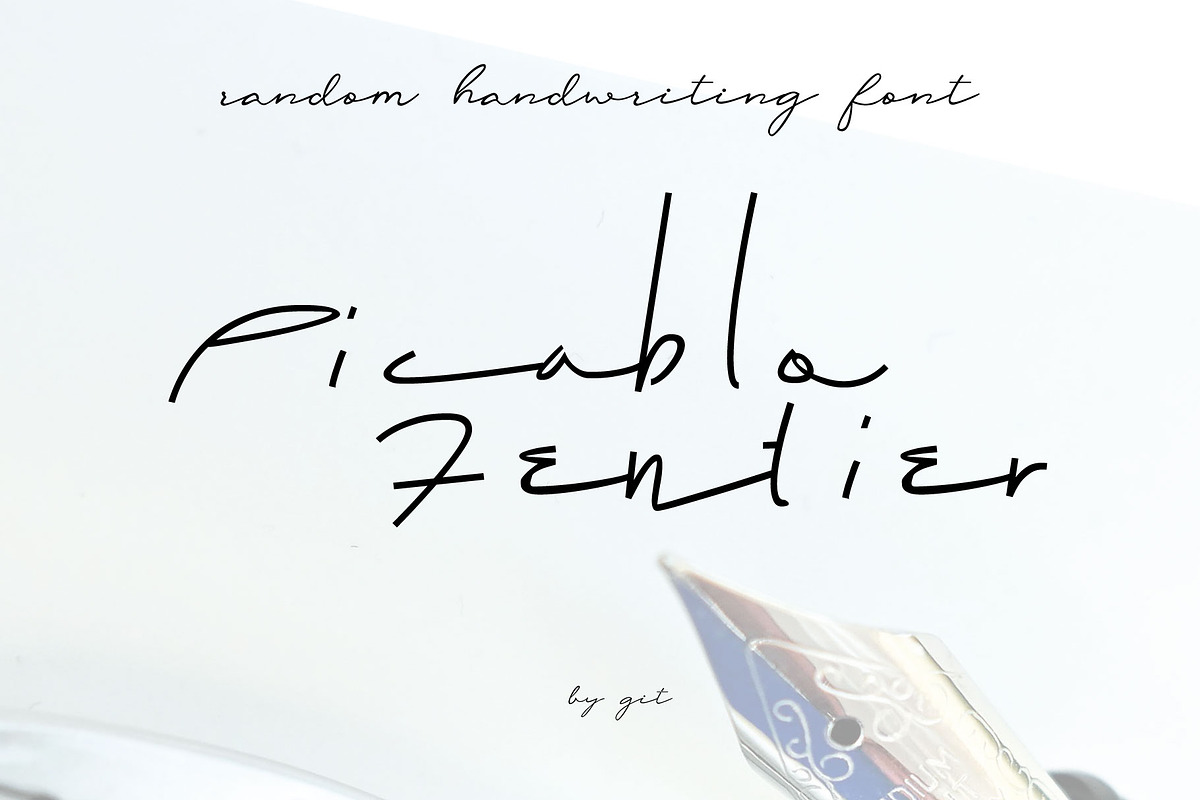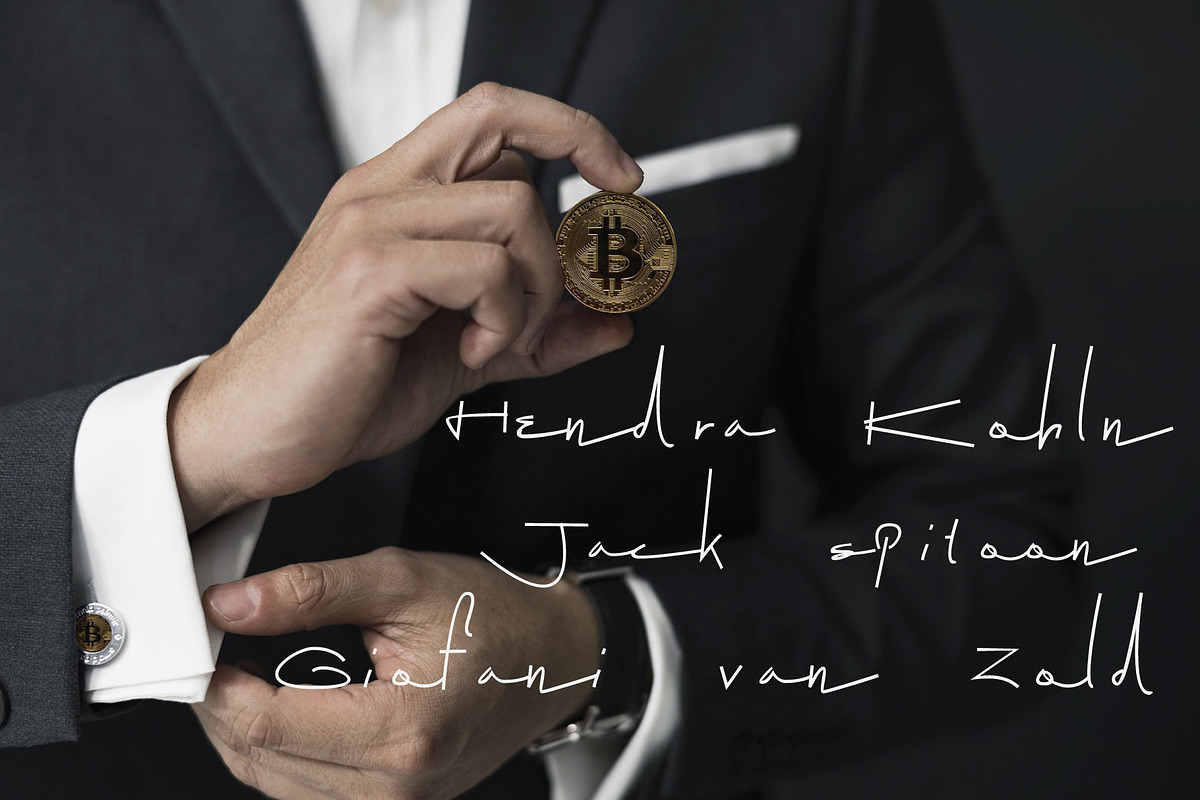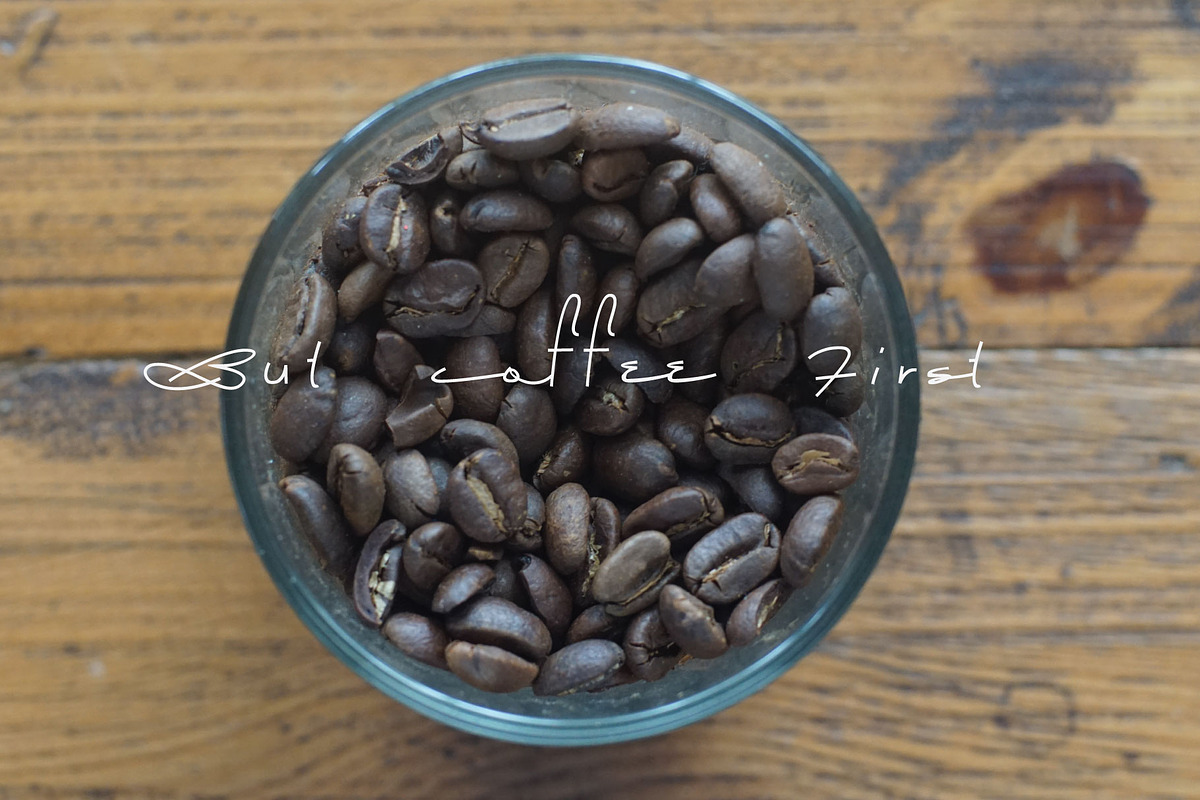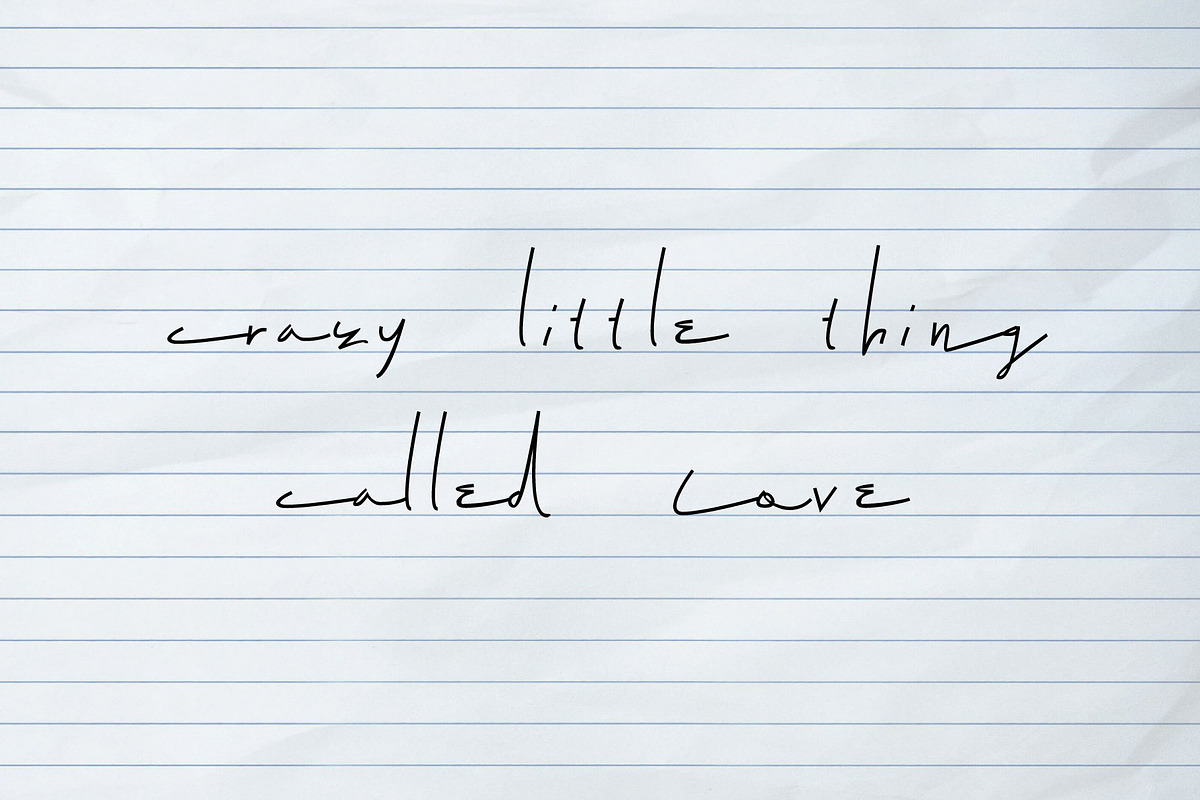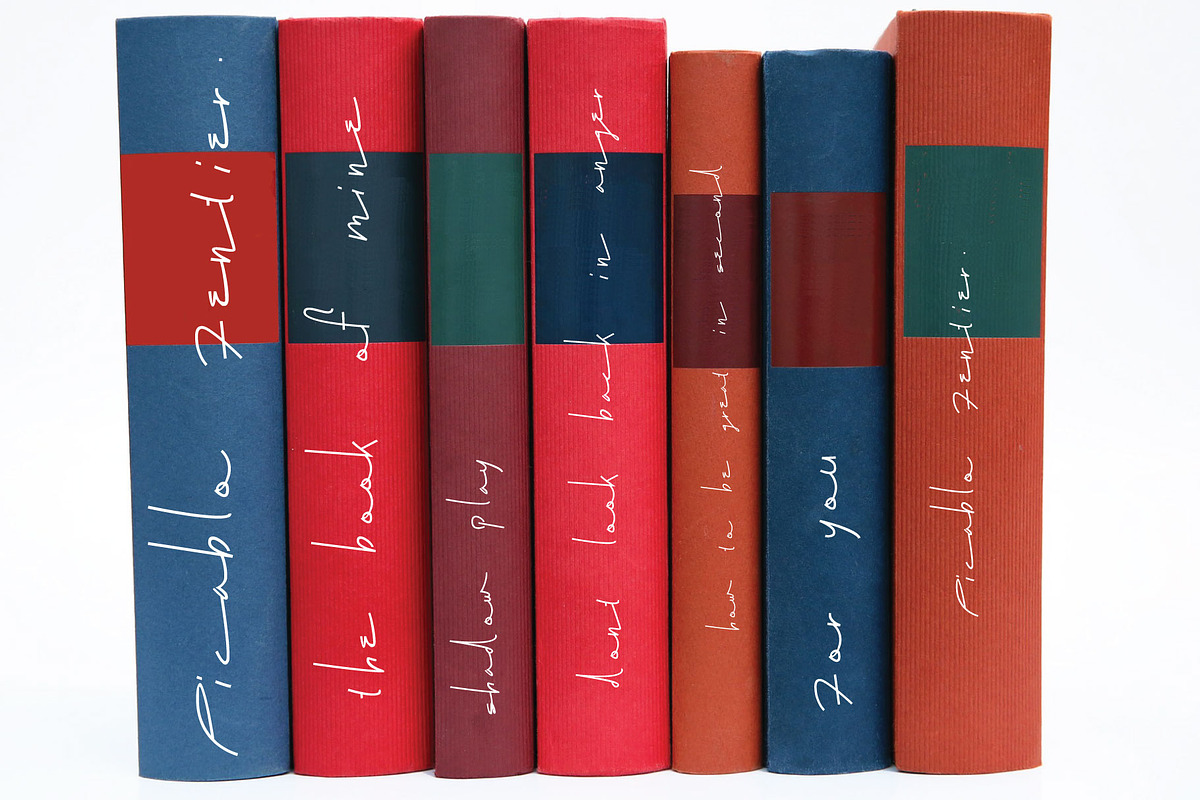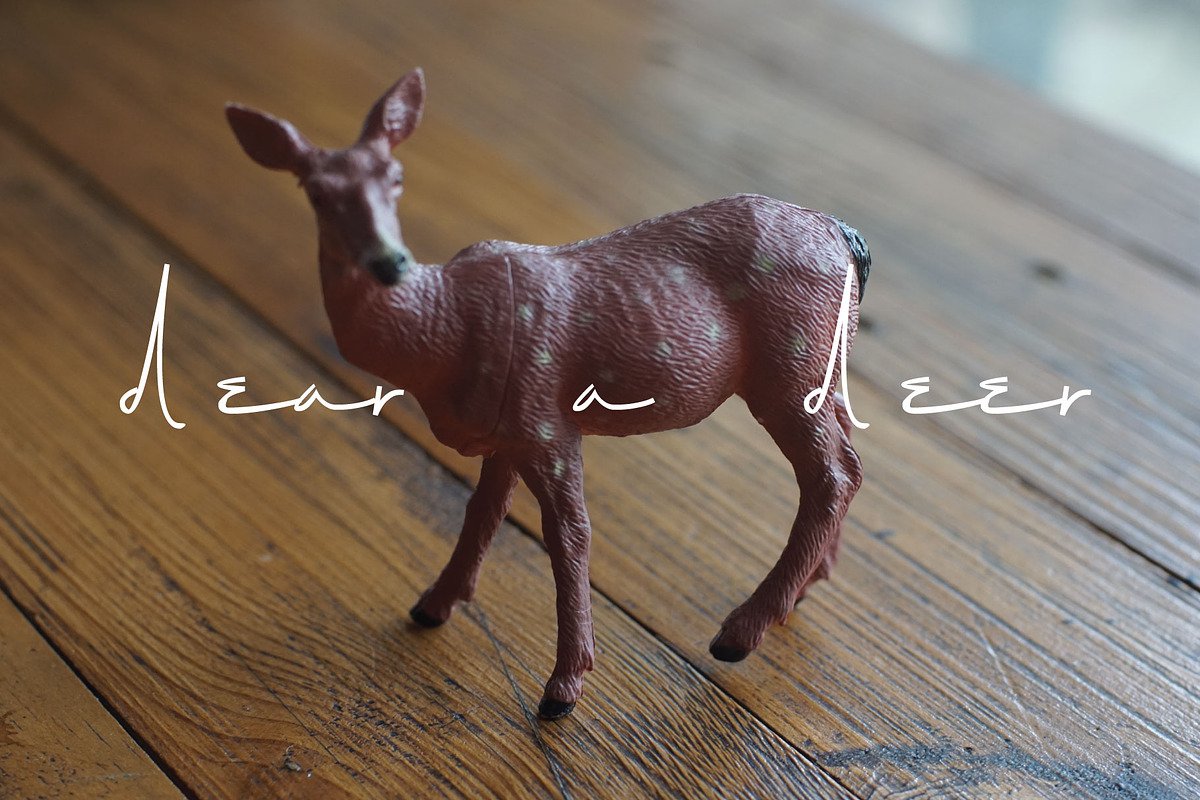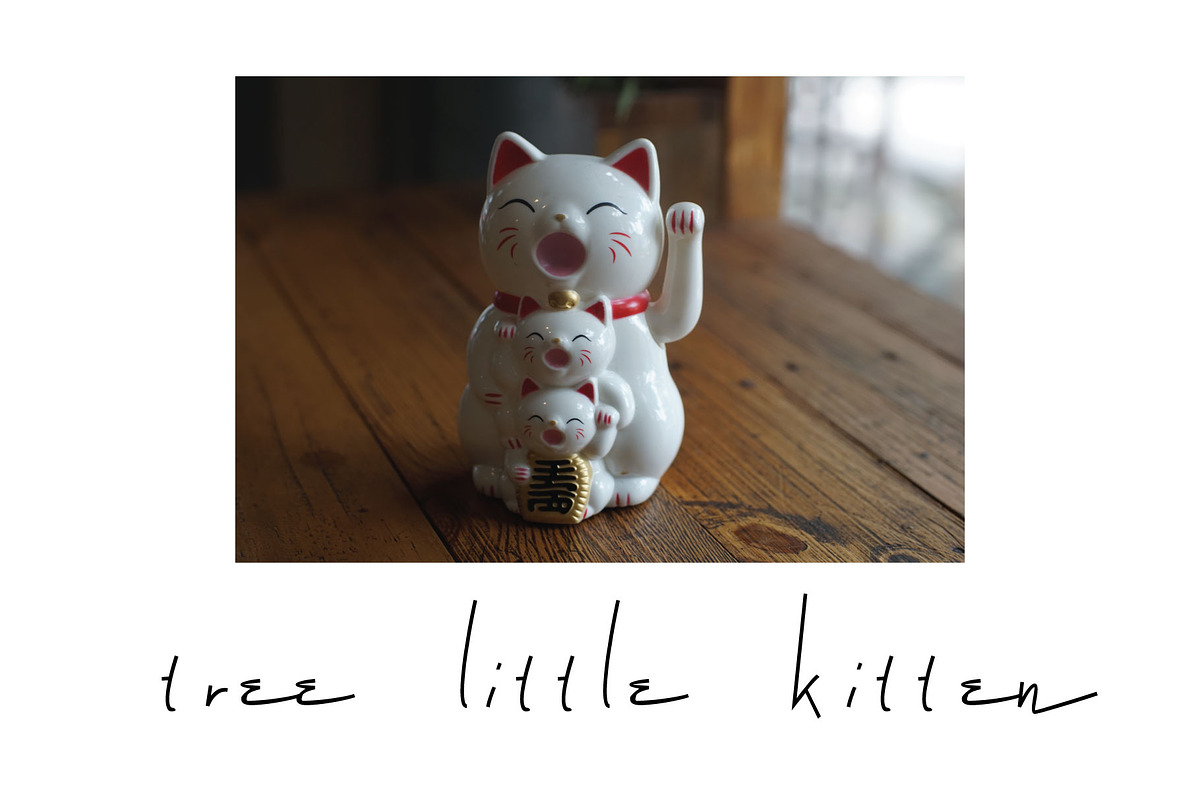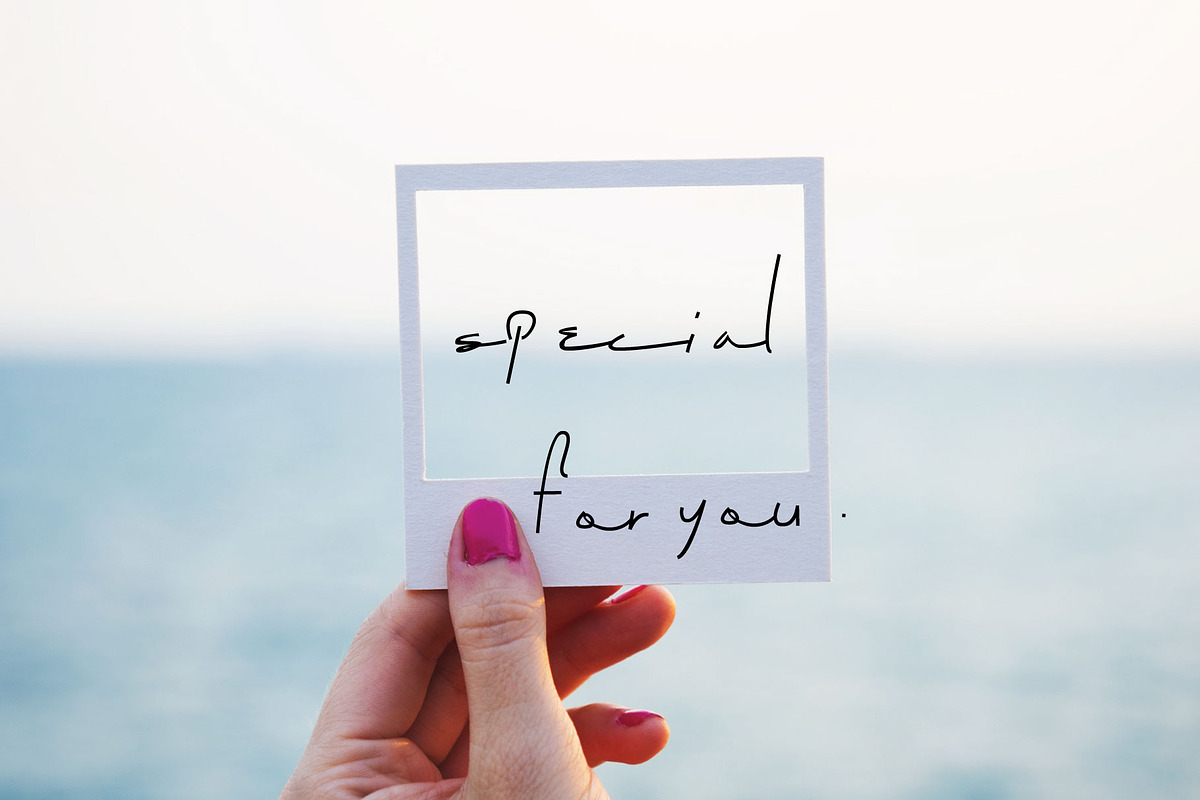
Picablo Fentier - Handwritten font
Picablo Fentier is a distinctive handwritten font designed to bring warmth, personality, and authenticity to your creative projects. Featuring smooth, natural strokes and an elegant handwritten style, this versatile typeface creates a genuine handcrafted look that feels both stylish and approachable. Whether you're designing professional branding materials or personal creative works, Picablo Fentier adds a unique touch that makes every design memorable.
Perfect for logos, branding, wedding invitations, social media graphics, advertisements, posters, product packaging, greeting cards, stationery, quotes, apparel, labels, and business cards, this font adapts beautifully to a wide range of design styles. Its clean and balanced letterforms provide excellent readability while maintaining the charm and character of authentic handwriting.
Picablo Fentier also includes multilingual support, making it suitable for international projects and global brands. Whether you're creating modern visual identities, elegant marketing materials, or eye-catching display typography, this handwritten font delivers the perfect balance of creativity, sophistication, and versatility. Add Picablo Fentier to your font collection and create beautiful designs that leave a lasting impression.